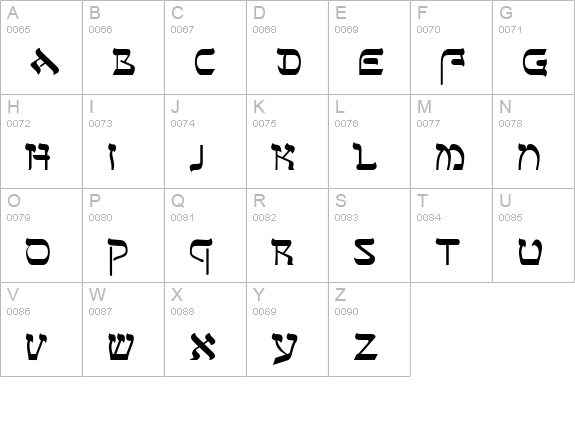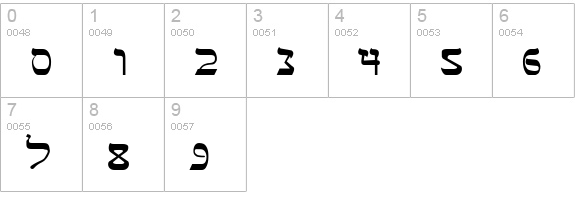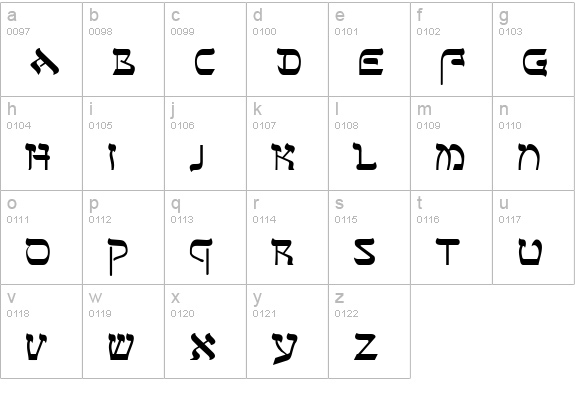
Sefer AH Font Details
Sefer AH is a stunningly beautiful font that combines elegance and sophistication with a touch of modernity. This font is perfect for adding a sophisticated touch to your designs, whether it's for branding, marketing materials, invitations, or any other creative project. With its clean lines and graceful curves, Sefer AH exudes a sense of refinement and class. Each letter has been carefully crafted to ensure a harmonious balance between the strokes, resulting in a visually pleasing typeface that is a true pleasure to behold. But what sets Sefer AH apart is not only its exquisite design but also the fact that it is free. That's right, this incredible font is freely available to download at FontsMarket.com. Now you can add a touch of elegance to your designs without breaking the bank. Whether you're a professional designer or a hobbyist, Sefer AH is a must-have in your font collection. Its versatility allows it to be used in a wide range of projects, from corporate presentations to wedding invitations. This font will truly elevate your designs and make them stand out from the crowd. So why wait? Download Sefer AH today and let your creativity soar. With its timeless beauty and free availability, this font is a true gem that you don't want to miss out on. Head over to FontsMarket.com now and get ready to transform your designs with the stunning Sefer AH font.